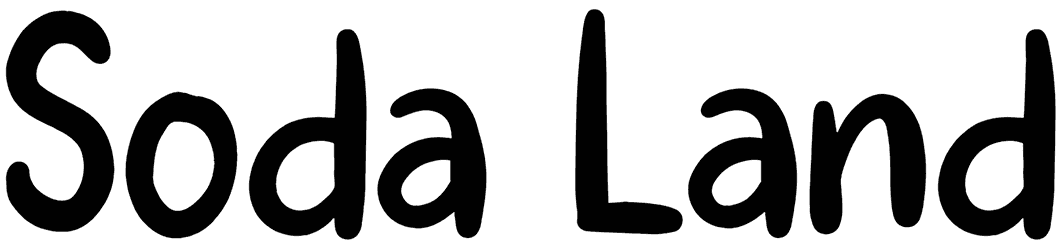
Soda Land Font
Soda Land is a script font that is really capable of turning any kind of graphic content including posters, gift cards, greeting cards, applications, and headlines into a lovely piece of art. Due to its soft flow, you can establish a sense of delicacy, friendliness, comfort, or playfulness in your artwork.
Soda Land is a fancy font that will bring playful feel to your designs.
It is inspired by Summer theme typographies and it looks casual and natural.
Soda Land is perfect for branding purposes such as logo, label, title, headline, product, social media, business card, quotes, and othersFull Version Download Here :